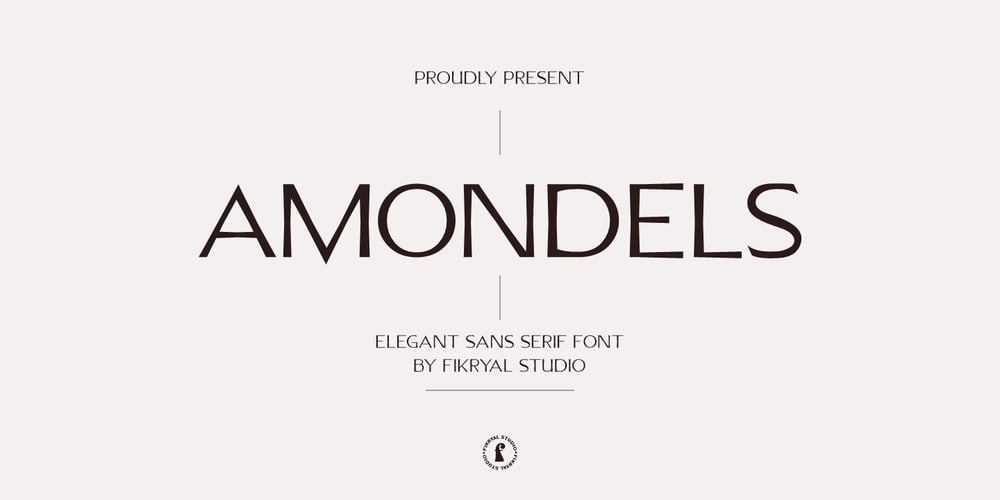
Amondels Font Family was designed by Muhammad Fikry and published by Fikryal. Amondels contains 1 styles and family package options. Introducing Maldives – The Epitome of Luxury and Elegant Impression in Typography. With a captivating and assertive grace, this sans-serif font exudes unparalleled beauty in all caps. Each letter is meticulously crafted to convey a potent yet unpretentious essence in every presentation.Maldives seamlessly marries simplicity and sophistication, resulting in extraordinary visual harmony.